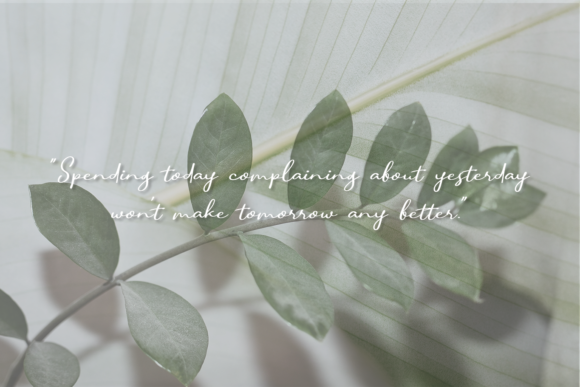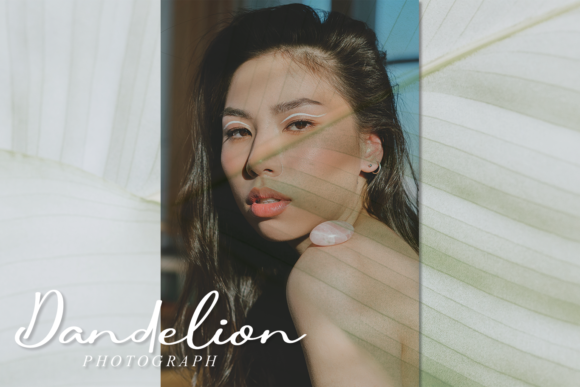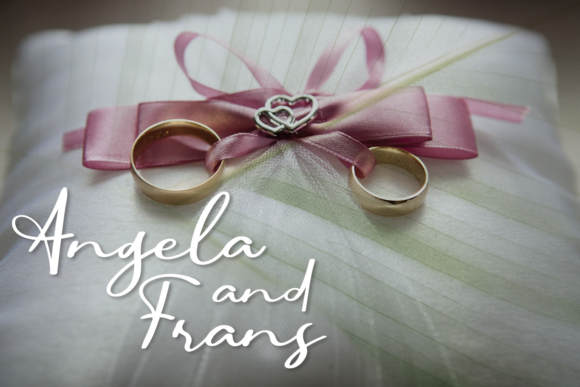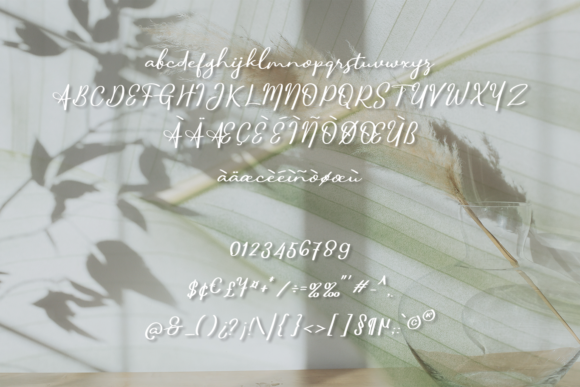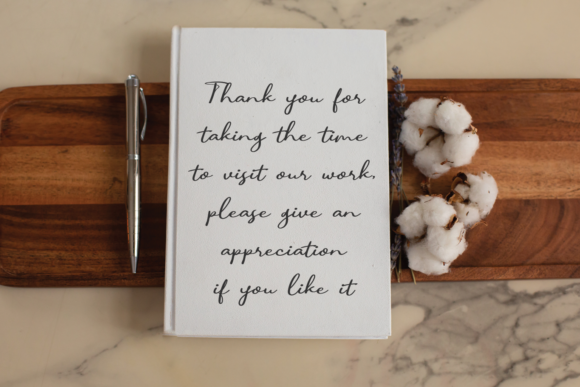
Introducing Giovani Font: The Perfect Handwritten Font for Romantic Designs
Are you a designer or crafter looking for a font that can add a touch of romance and personalization to your designs? Look no further than Giovani Font! This beautiful, handwritten font is perfect for creating wedding invitations, cards, and other designs that require a sweet and joyful touch.
What is Giovani Font?
Giovani Font is a dainty and flowing handwritten font that is sure to capture the hearts of designers and crafters alike. Its sweet and joyful vibe makes it an ideal choice for creating romantic and personalized designs. Whether you’re designing a wedding invitation, a greeting card, or a social media post, Giovani Font is the perfect choice.
Key Features of Giovani Font
- Handwritten style: Giovani Font is a handwritten font that mimics the look of handwritten text. Its flowing lines and curves give it a personal and intimate feel that’s perfect for romantic designs.
- Dainty and elegant: Giovani Font is a dainty and elegant font that’s perfect for creating sophisticated and refined designs.
- Sweet and joyful: The font has a sweet and joyful vibe that’s perfect for creating designs that require a touch of romance and whimsy.
- Versatile: Giovani Font is a versatile font that can be used for a variety of design projects, from wedding invitations to social media posts.
Uses for Giovani Font
Giovani Font is a versatile font that can be used for a variety of design projects. Here are some ideas to get you started:
- Wedding invitations: Giovani Font is perfect for creating beautiful and romantic wedding invitations that will set the tone for the big day.
- Greeting cards: The font is also great for creating greeting cards for special occasions, such as birthdays, anniversaries, and holidays.
- Social media posts: Giovani Font can be used to create beautiful and engaging social media posts that will capture the attention of your followers.
- Stationery: The font is perfect for creating custom stationery, such as letterheads, notecards, and journals.
Tips for Using Giovani Font
Here are some tips for using Giovani Font in your designs:
- Pair it with other fonts: Giovani Font can be paired with other fonts to create a unique and interesting design. Try pairing it with a bold font for a striking contrast.
- Use it in combination with images: The font looks great when used in combination with images, such as flowers, lace, or other romantic elements.
- Experiment with colors: Giovani Font can be used with a variety of colors to create different moods and effects. Try using pastel colors for a soft and romantic look.
Giovani Font is a beautiful and versatile handwritten font that’s perfect for creating romantic and personalized designs. Its sweet and joyful vibe makes it an ideal choice for wedding invitations, cards, and other designs that require a touch of whimsy and elegance. With its dainty and flowing lines, Giovani Font is sure to capture the hearts of designers and crafters alike.